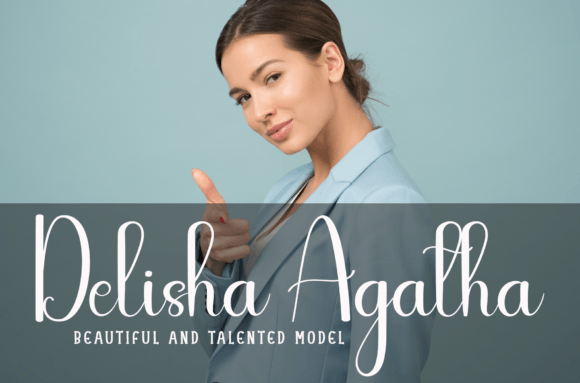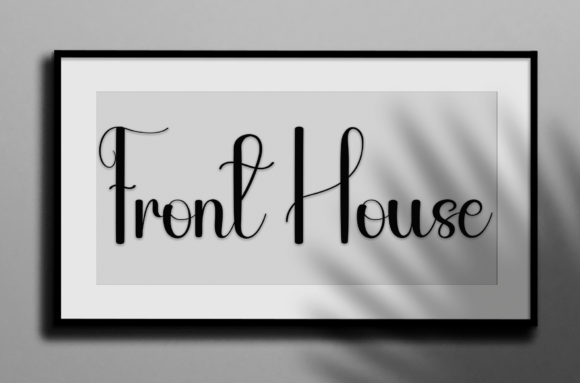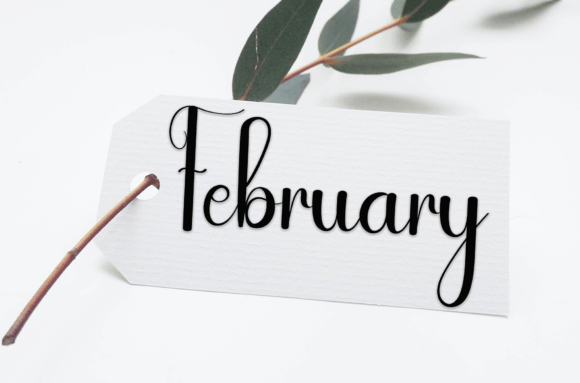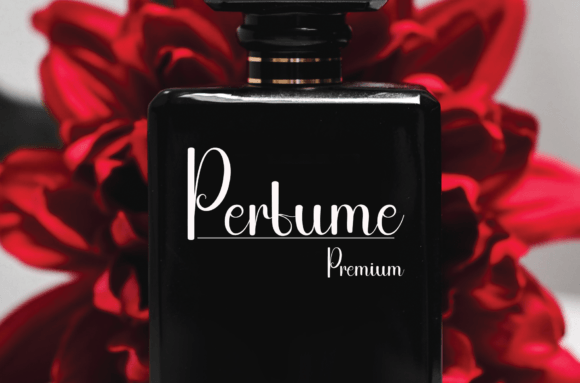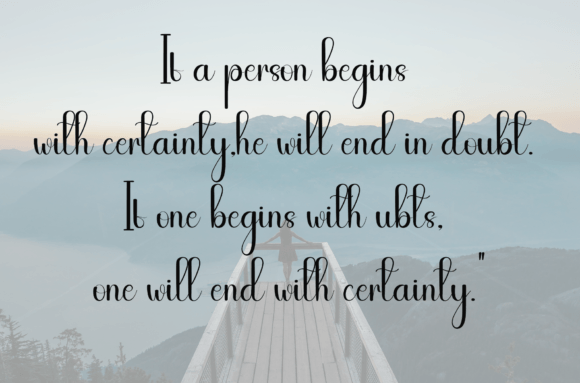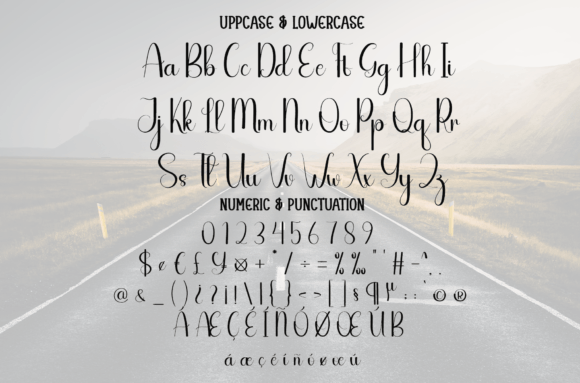
The Joy of Handwritten Fonts
Have you ever sat down with a pen and paper, feeling the urge to create something beautiful and unique? The world of typography is full of endless possibilities, and for designers, the quest for the perfect font can be a thrilling adventure. Today, we’re excited to introduce you to a font that’s sure to bring a smile to your face – the Carfreeday Font.
This sweet and friendly handwritten font is perfect for adding a fun touch to your designs. Whether you’re crafting wedding invitations, cards, or any other project that requires a personal touch, Carfreeday Font is the ideal choice. Its fresh and neat style makes it a valuable addition to any designer’s toolkit, offering a unique way to express your creativity and connect with your audience.
Carfreeday Font Key Features
- Unique Characteristics: The Carfreeday Font features a unique blend of modern and vintage elements, with a distinctive handwritten feel and subtle texture, making it perfect for creative and artistic designs.
Carfreeday Font Review
As a designer, I was excited to dive into the Carfreeday Font and see what it had to offer. Overall, I think this font has some great potential, but also some limitations that may hold it back.
Unique aesthetic: Carfreeday Font has a distinct, quirky feel that sets it apart from more traditional fonts. I love the way it adds a touch of personality to any design.
Legibility: Despite its unique style, Carfreeday Font is still very legible, making it a great choice for body text or headings.
Font pairability: Carfreeday Font works well with a wide range of other fonts, making it easy to create visually appealing combinations.
Not ideal for large blocks of text: While Carfreeday Font is legible, it’s not the best choice for large blocks of text, as it can start to feel cluttered and overwhelming.
Lack of scalability: I noticed that Carfreeday Font doesn’t scale well to smaller font sizes, which can make it difficult to read.
I think Carfreeday Font is a great choice for designers who want to add a touch of personality to their designs. However, it may not be the best choice for projects that require large blocks of text or precise typography. With some careful selection and pairing, I think Carfreeday Font can be a valuable addition to any designer’s toolkit.
The Carfreeday font is a versatile and modern font that can be used in a variety of designs, including:
- Graphic design and visual arts